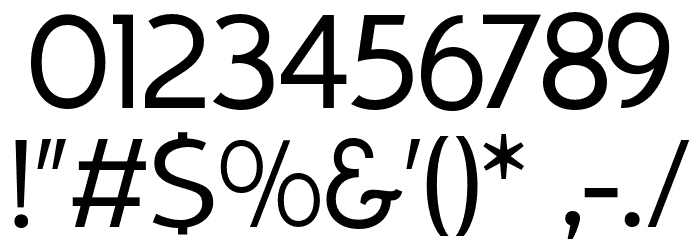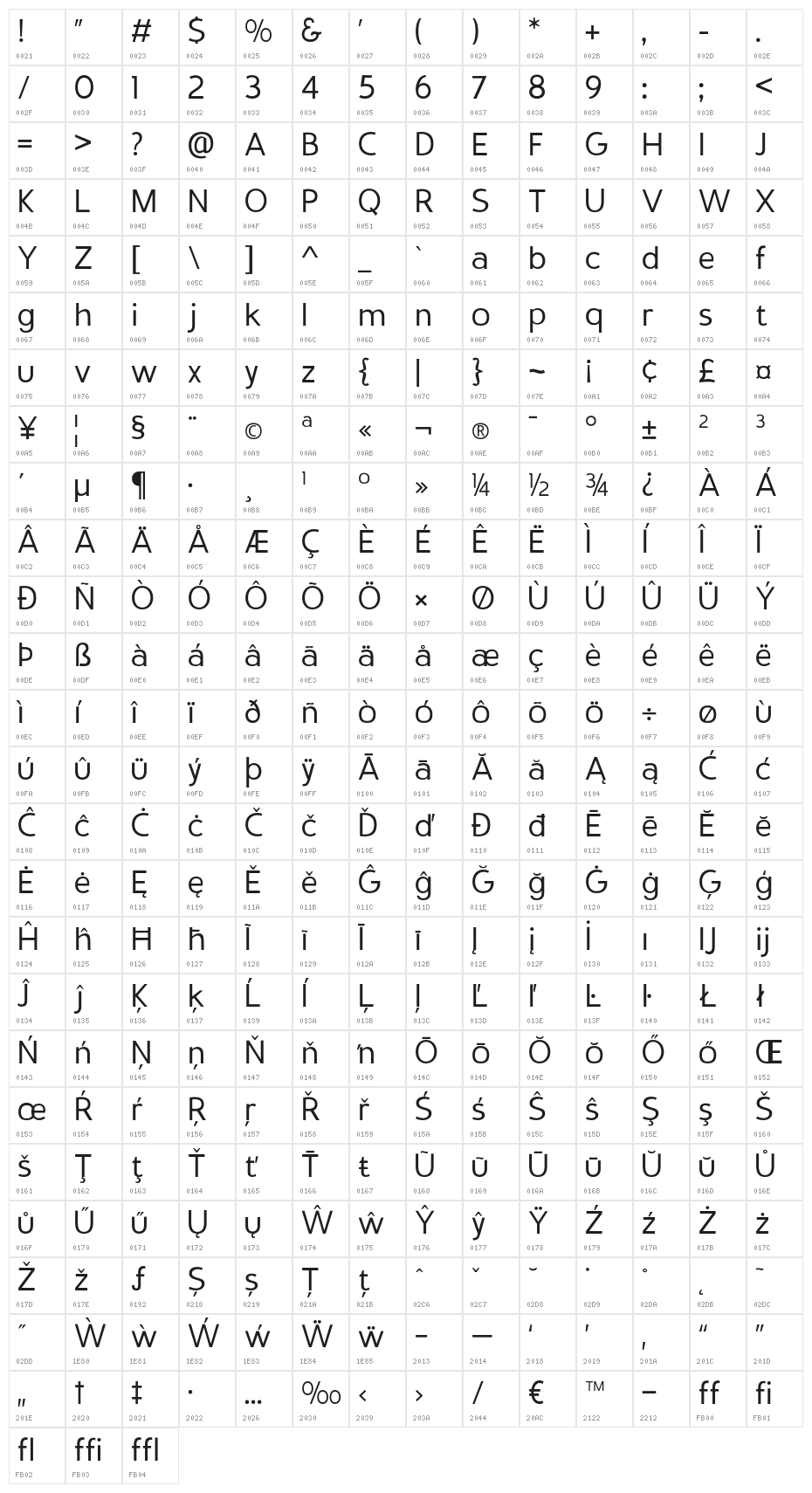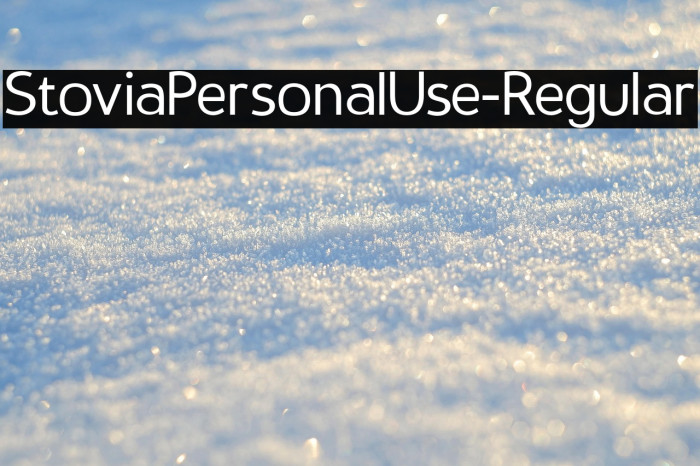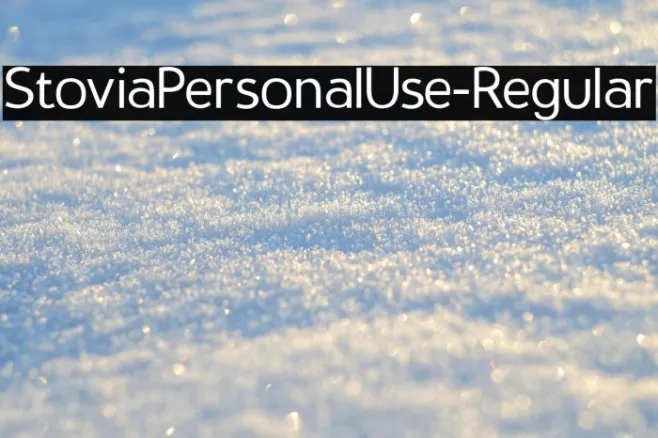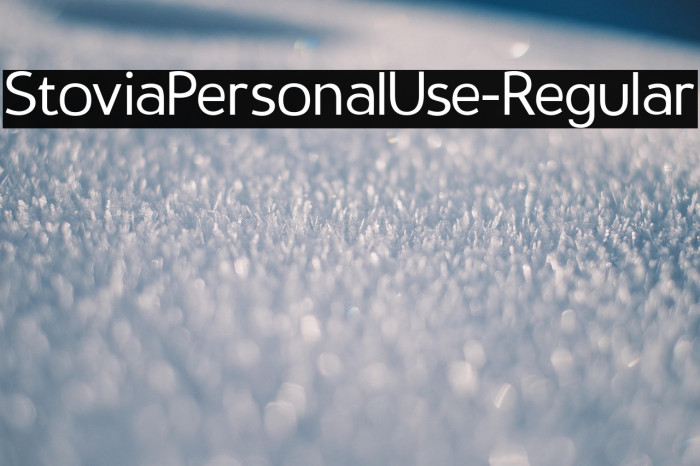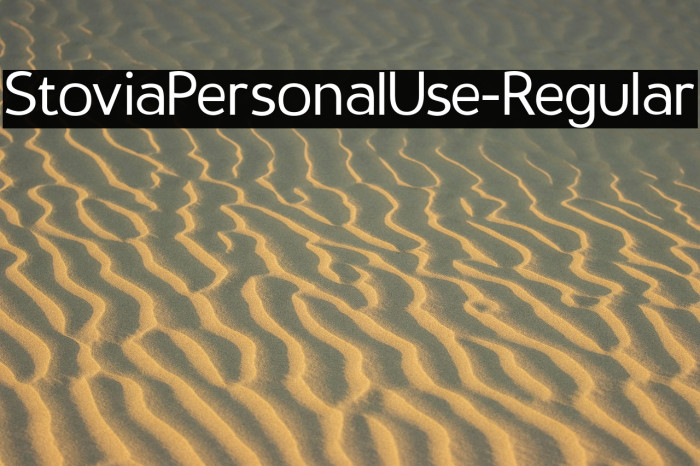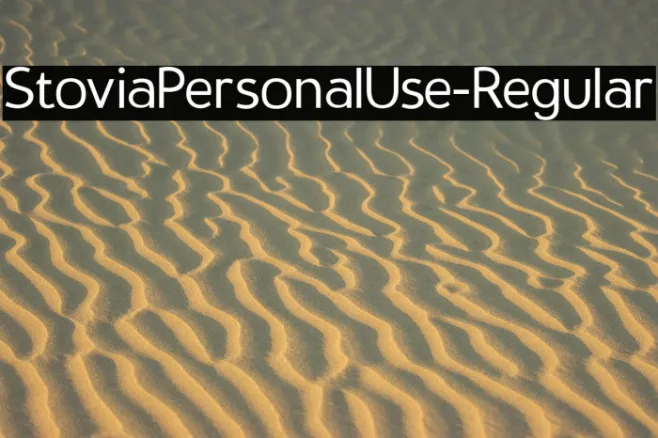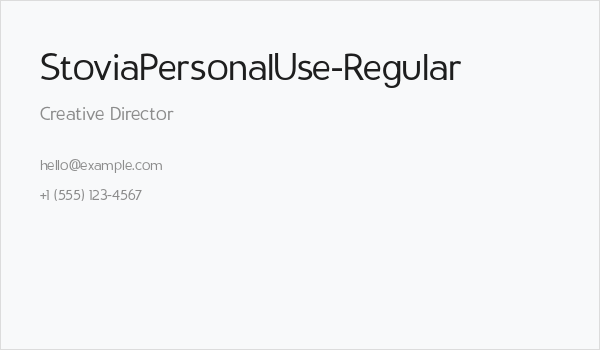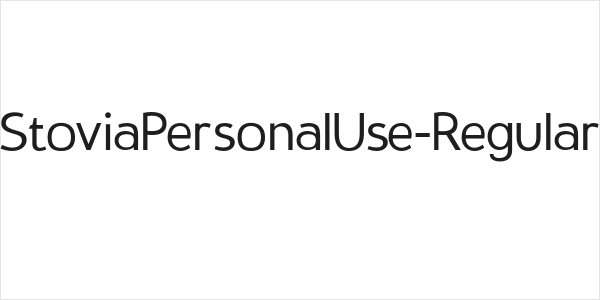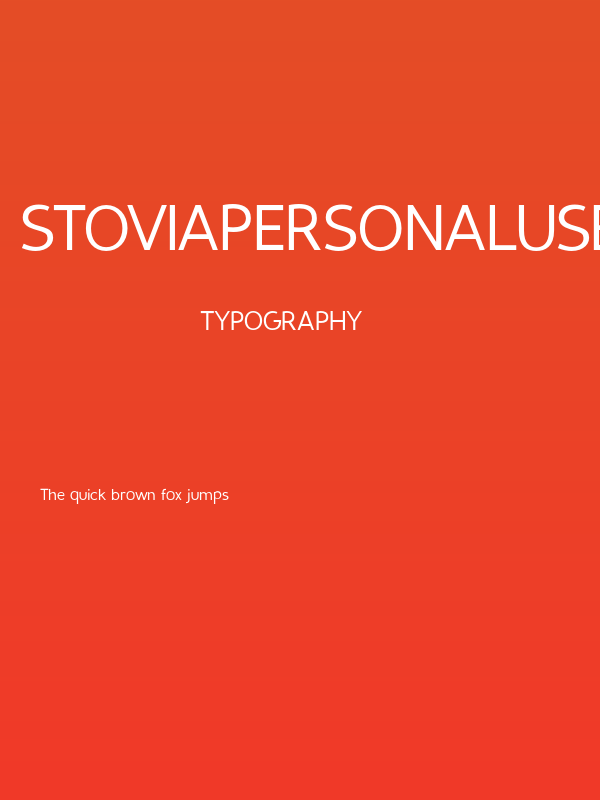
StoviaPersonalUse-Regular Font
StoviaPersonalUse-Regular Description
This font features a clean and modern sans-serif design, characterized by its smooth curves and balanced proportions. The uppercase letters are bold and assertive, while the lowercase letters maintain a friendly and approachable appearance. The numerals are clear and easy to read, making them suitable for various applications. The special characters are well-integrated, maintaining the overall aesthetic of the font. Its simplicity and elegance make it versatile for both digital and print media.
| Proposed Projects | Ideal for branding, web design, advertising, and editorial layouts. |